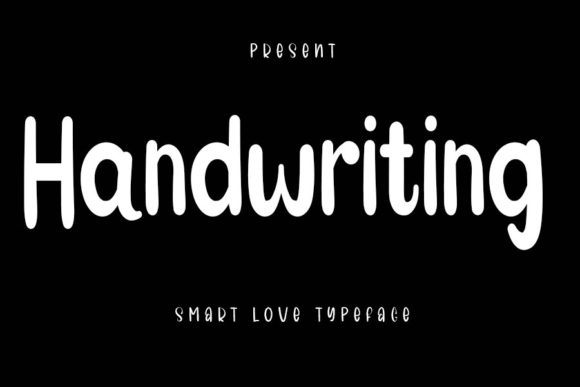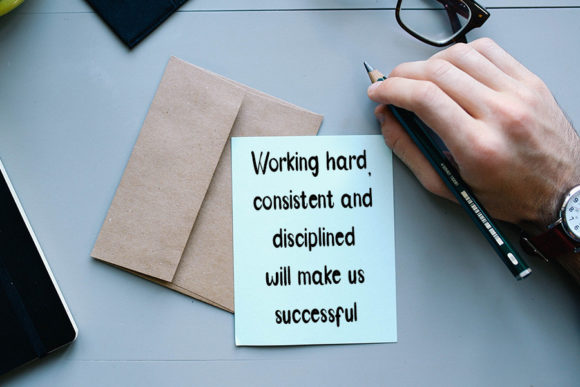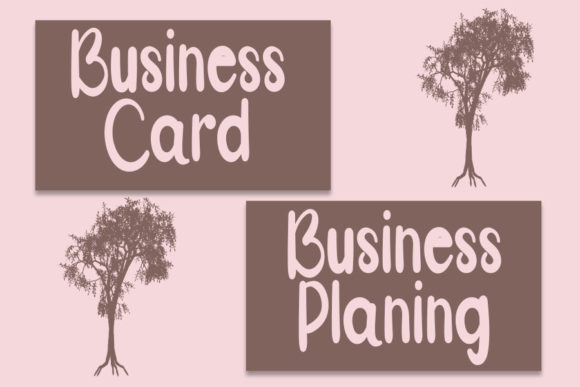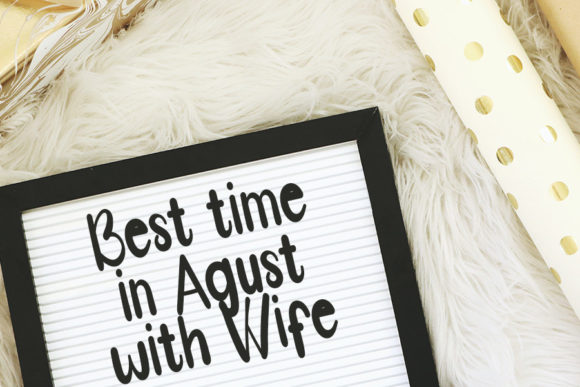
About Handwriting Font
Handwriting is a lovely handwritten font with a natural and stylish vibe. It will fit perfectly with your delicate projects such as wedding invitations, birthday cards, gifts, thank you cards, and other projects alike!